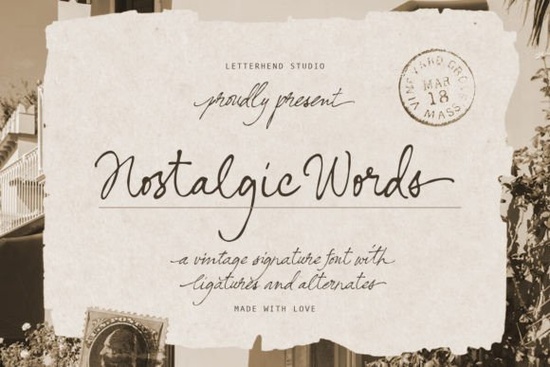
If you’ve been searching for a handwritten script that feels personal, warm, and just a little bit vintage, the Nostalgic Words Font might be exactly what your next project needs. It’s modeled after real hand-lettering the kind you’d find in old love letters or journal entries with subtle imperfections that give it character without sacrificing readability. Whether you’re designing wedding invites, branding a small shop, or creating custom packaging, this font brings an emotional touch that generic typefaces often miss.
What makes it especially useful is how well it adapts to different contexts. The built-in ligatures and alternates help avoid that “repetitive” look you sometimes get with script fonts. You can switch between letterforms to keep things looking natural, even when words repeat across a design. That’s why it works so well for logos where uniqueness matters and also for longer-form projects like book covers or greeting cards, where rhythm and flow are key.
Who should use Nostalgic Words?
This font isn’t just for professional designers. If you run a print-on-demand store, craft handmade goods, or manage a small business with a personal brand, you’ll find it easy to drop into Canva, Photoshop, or Illustrator and immediately elevate your visuals. Its vintage signature style pairs beautifully with floral patterns, muted color palettes, and minimalist layouts think boutique labels, indie magazines, or Etsy product mockups.
For hobbyists who enjoy making their own cards or scrapbook pages, the alternates let you tweak each word until it feels “just right.” No two uses have to look identical, which keeps your creations feeling authentic. And if you’re working on something seasonal like holiday packaging or baby shower invites you might also want to check out Baby Dreams or Christmas Wedding for complementary styles that share the same cozy, handcrafted vibe.
How does it compare to other script fonts?
Not all script fonts are created equal. Some feel too stiff; others are so ornate they become hard to read at smaller sizes. Nostalgic Words strikes a balance it’s fluid enough to feel expressive but grounded enough to stay legible. If you’ve tried fonts like Barbie Cute for playful projects or Million Smiles for cheerful branding, you’ll notice Nostalgic Words Font leans more toward warmth and nostalgia than whimsy.
It also plays nicely with serif and sans-serif pairings. Try setting body text in a clean sans (like Montserrat or Lato) and using Nostalgic Words for headlines or callouts. This contrast helps guide the eye while keeping the overall tone cohesive. For country-themed or rustic designs, consider pairing it with Country Last Night Duo the combination gives you both structure and soul.
Where will it look best?
- Logos Especially for bakeries, florists, boutiques, or lifestyle brands that want to feel approachable.
- Invitations Wedding suites, baby showers, milestone birthdays any event where you want to convey intimacy.
- Packaging Soap labels, tea tins, candle jars anywhere you want customers to feel like they’re holding something made by hand.
- Stationery Note cards, journals, stickers perfect for adding a personal signature to everyday items.
- Social media graphics Quotes, announcements, or product promos that need a gentle, human touch.
Any tips for getting the most out of it?
First, take time to explore the OpenType features. Most design software lets you toggle ligatures and stylistic alternates from the character panel don’t skip this step. A few quick swaps can transform a plain word into something that looks truly custom.
Second, avoid stretching or compressing the letters. Script fonts rely on spacing and rhythm to feel natural. If you need to fit text into a tight space, try adjusting tracking slightly instead of scaling the font itself.
Third, test it at different sizes. While it’s designed to be readable even small, some of the finer details like ink bleeds or pen lifts show up best at larger scales. Use those moments to add charm: maybe on a hero image, cover title, or featured product name.
Quick checklist before you start:
- ✅ Enable ligatures and alternates in your design app.
- ✅ Pair with a simple sans-serif for contrast.
- ✅ Avoid heavy effects like drop shadows let the texture speak for itself.
- ✅ Use sparingly in long paragraphs; best for headlines, names, or short phrases.
Whether you’re refreshing your brand, crafting something heartfelt, or just experimenting with typography, Nostalgic Words offers a quiet kind of elegance that doesn’t shout it whispers, warmly, like a note left on the kitchen counter.